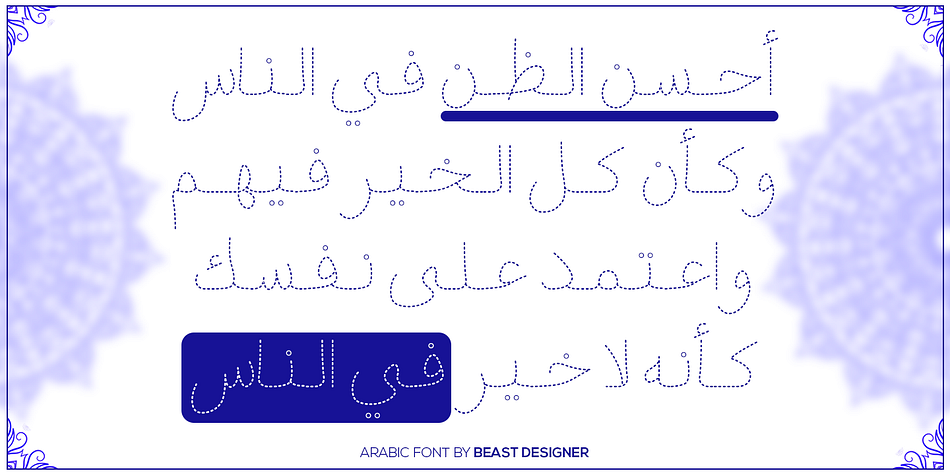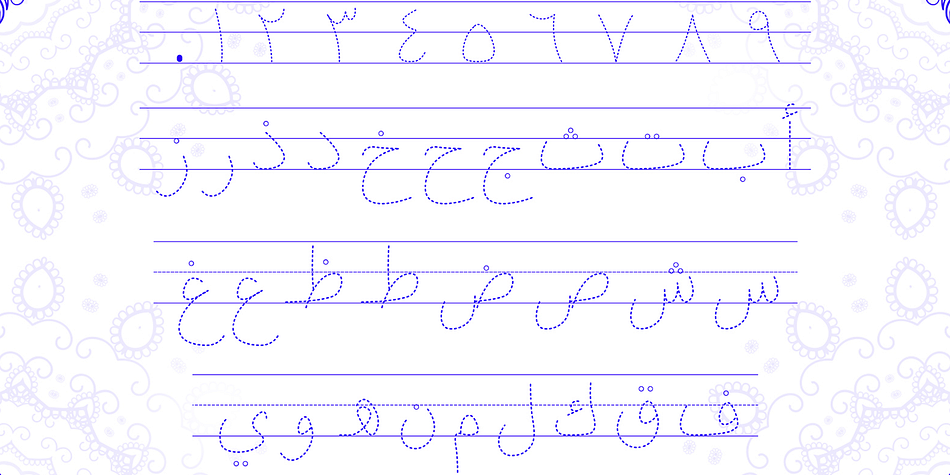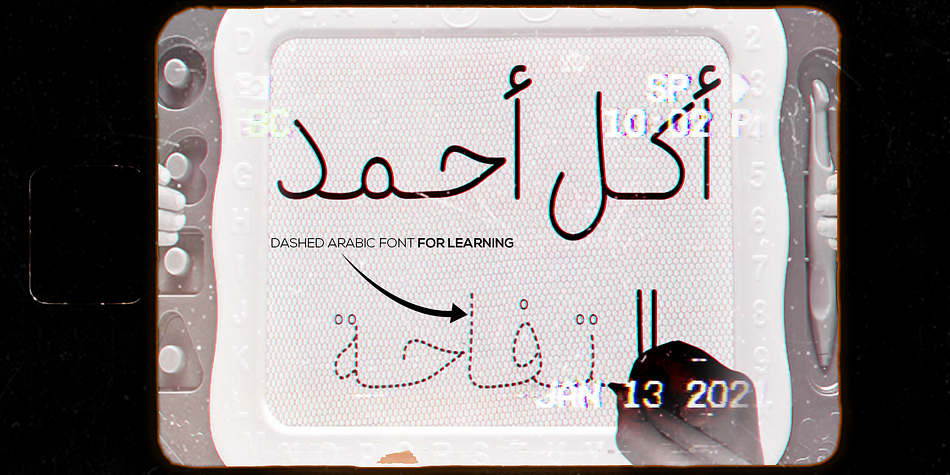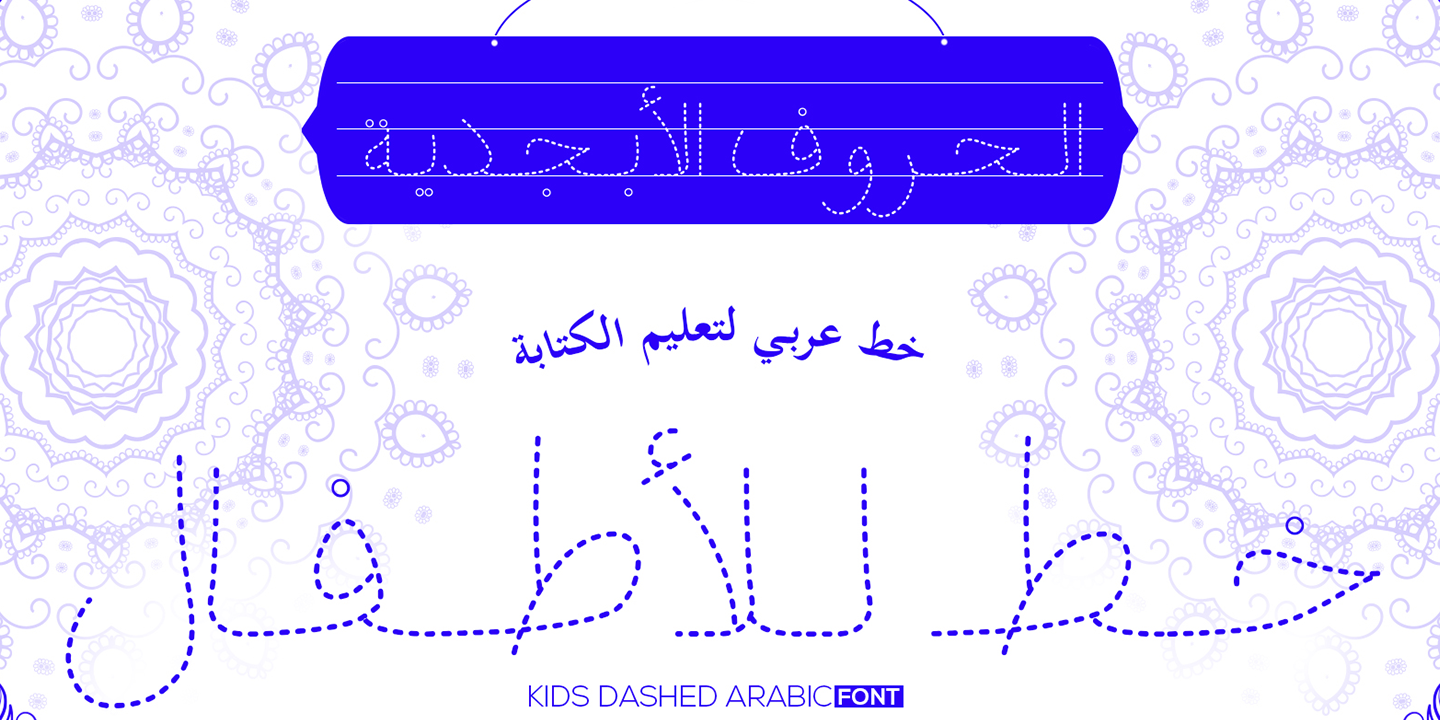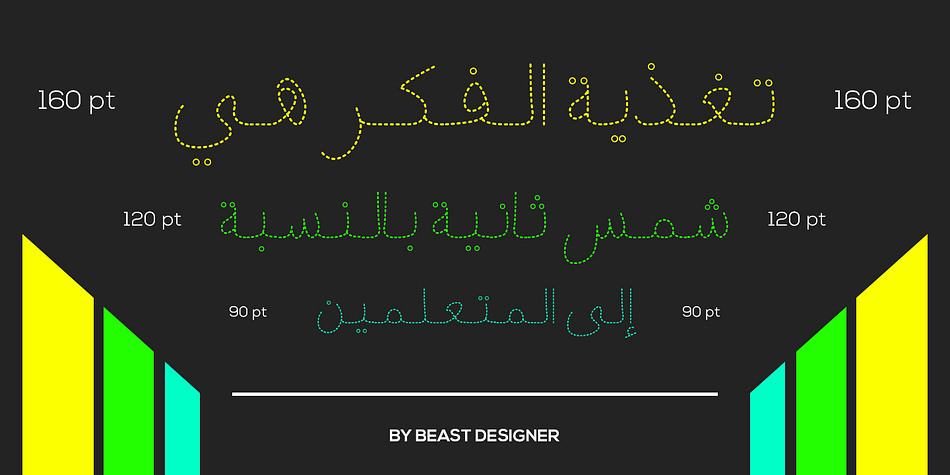
Kids Arabic Dashed
Designed by Mohammed Lamjidi, Kids Arabic Dashed is a display font family published by Beast Designer.
Kids Arabic is an incredibly unique and interesting dashed display font. It was designed especially for letter tracing worksheet for children, but it could be employed to a variety of other designs. Add it to your portfolio of fonts and it will soon become a favorite option, no matter the creation!